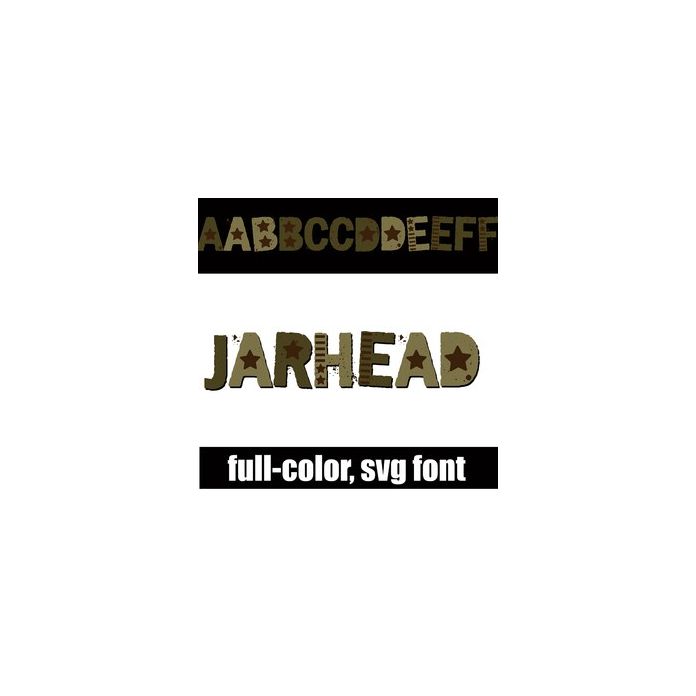
This full-color font features a military style stencil letter in a khaki color palette. This font works best for titles, displays, posters and more. Please note color fonts will show as black in non compatible programs. This font type is compatible with Silhouette Studio.